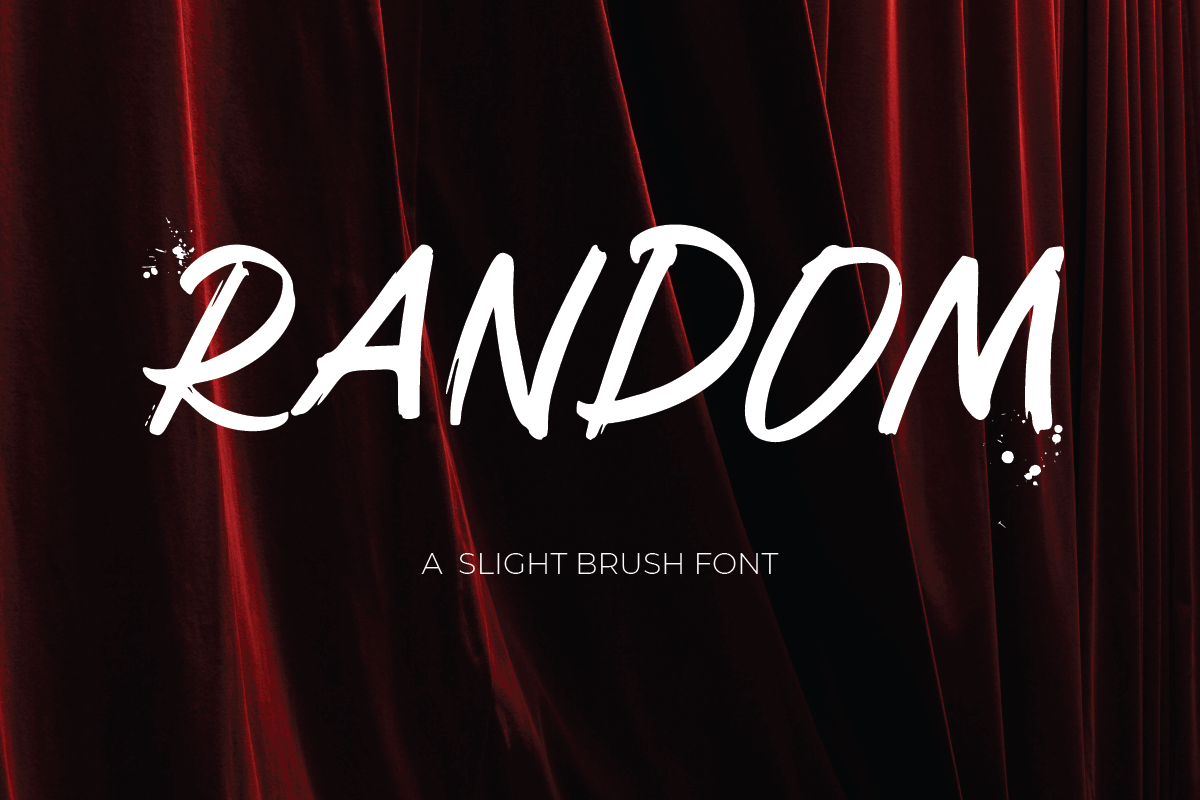
Random
-A Slight Brush Font
Random is a Slight Brush Font that’s perfect for Poster, Headline, and any more. This font created for freedom projects, ready to use on any poster, headline, promotion, and Many more that needs rough touches.